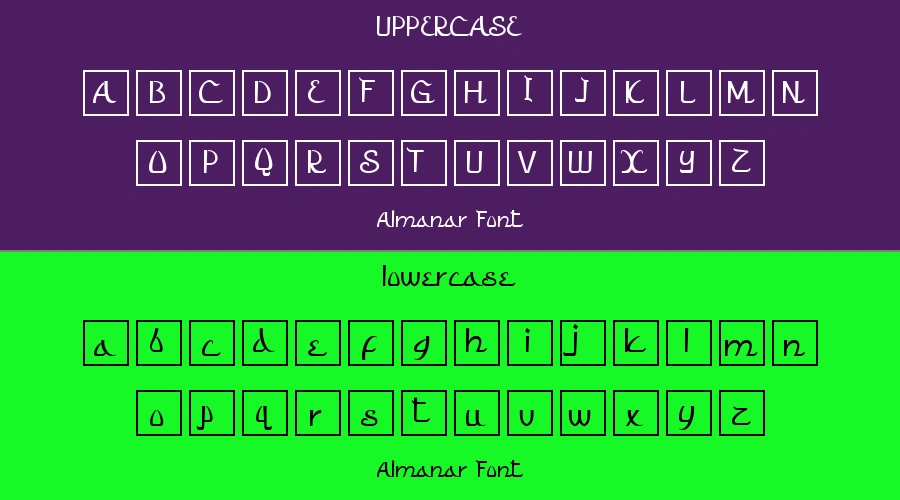
About Almanar Font
Almanar Font represents a sophisticated approach to type design, balancing consistent strokes with durability. Perfect for engineering drawings, this font family showcases impressive functionality and cultural significance throughout its character set. Designers appreciate its versatility and reliability.
Designers will appreciate nuanced touches including flourishes and stylistic sets, adding sophistication to any project. These features become apparent in data tables, where digital conversion matters most. The careful treatment of joint detail and technical innovation ensures optimal performance.